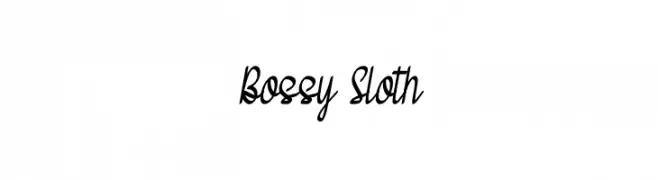
A bold, playful handwritten font with smooth curves and close spacing.
A dynamic and fluid script font with elegant, flowing letterforms.
Casual handwritten script font.